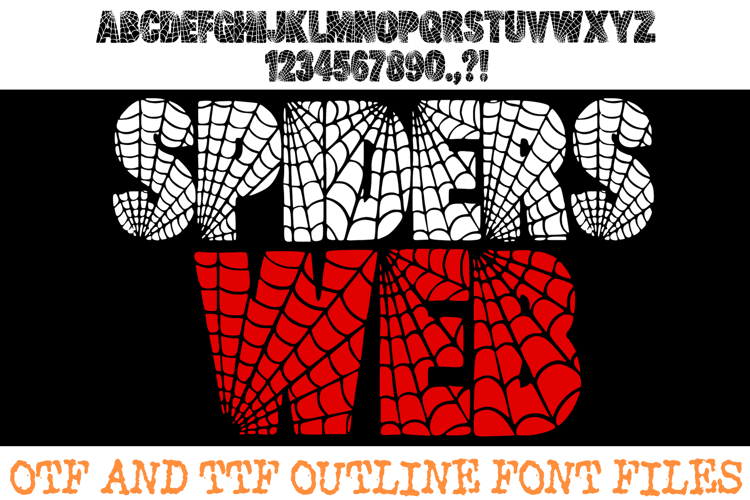
Entangle your designs in the eerie elegance of the Spiders Web Font! This masterfully hand-drawn display alphabet features bold, chunky letterforms completely filled with intricate, radial spiderweb patterns. It is the ultimate choice for Halloween party invitations, spooky social media graphics, horror-themed branding, and macabre digital scrapbooking.
The high-contrast design creates a striking visual impact, with delicate webs spinning outward from the corners and centers of each character. Whether you are designing a "haunted house" sign or creating edgy streetwear stickers, the Spiders Web Font adds a perfect touch of gothic mystery and crawling charm to your text.
Why Your Designs Will Be Spellbinding:
Intricate Radial Web Textures: Each character features unique, hand-drawn web patterns that provide a complex, layered look.
Bold High-Impact Silhouettes: The thick, rounded block style ensures that your message remains legible even with the detailed internal textures.